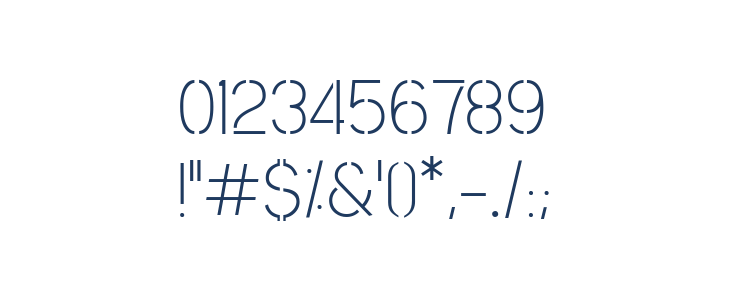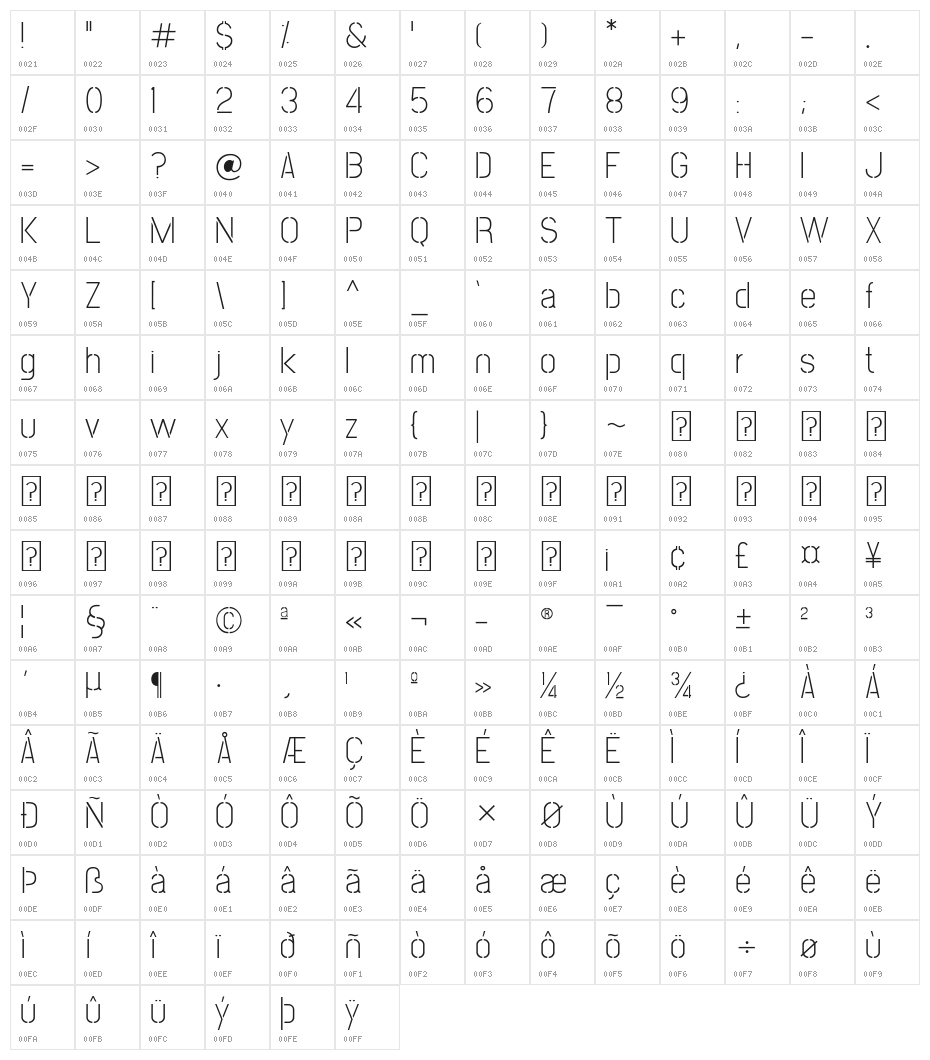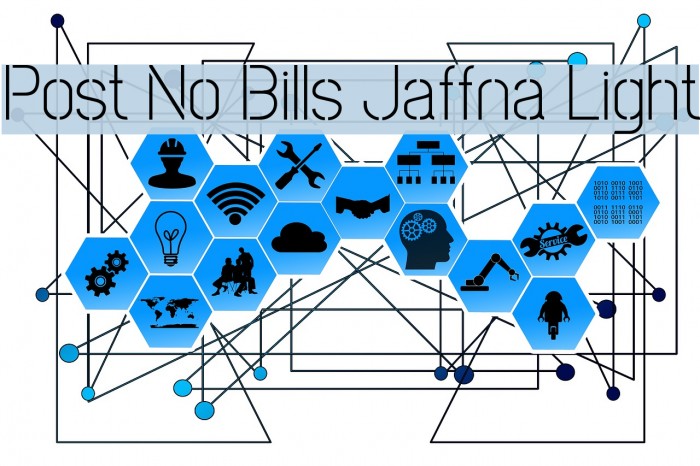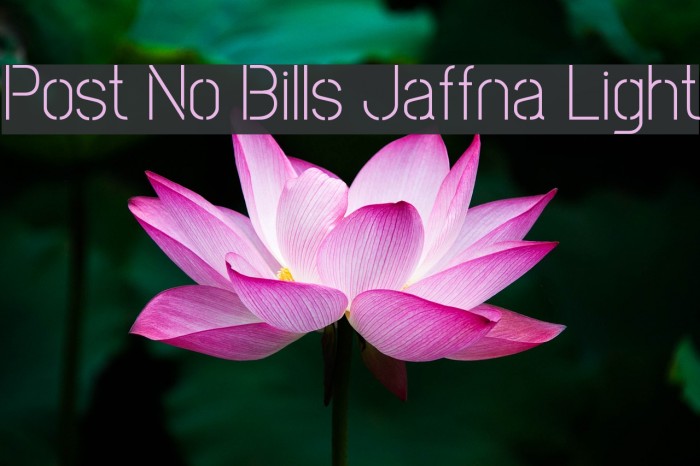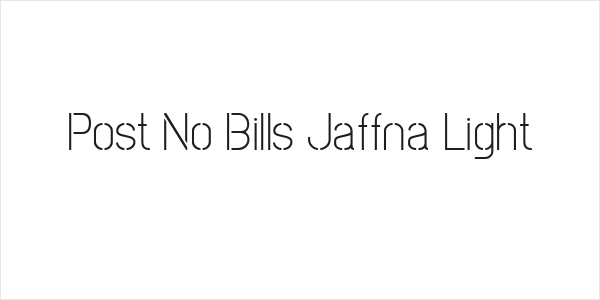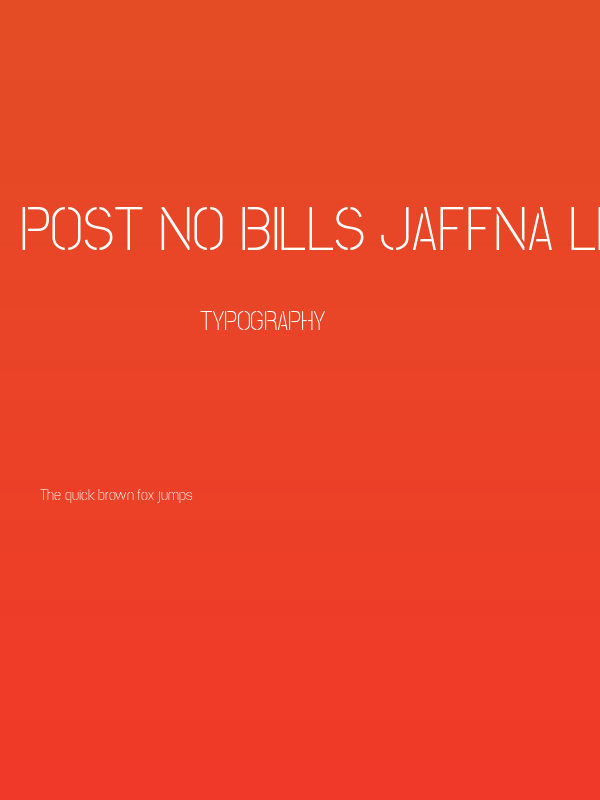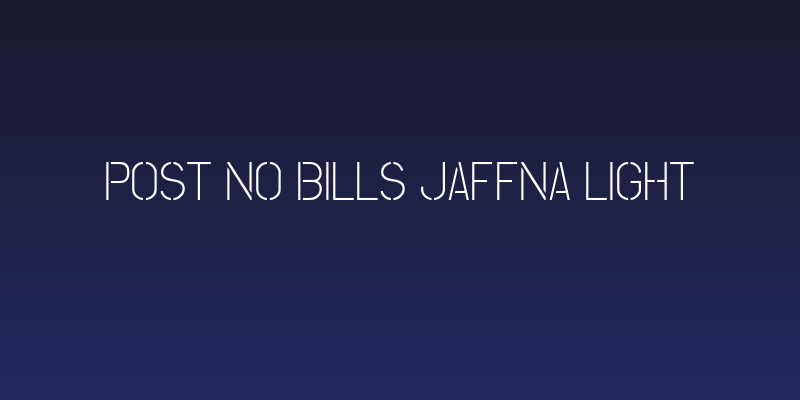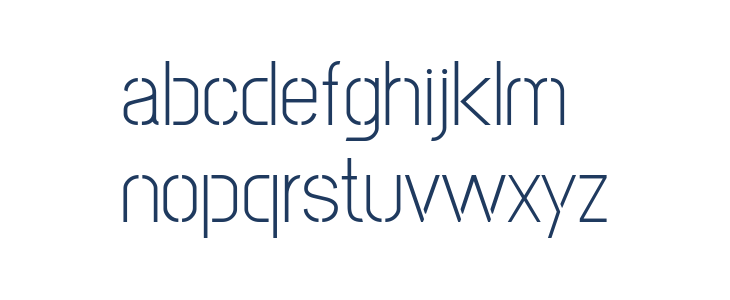
Post No Bills Jaffna Light Font
Post No Bills Jaffna Light Description
This font features a modern, geometric design with clean lines and a minimalist aesthetic. The characters are constructed with a uniform stroke width, giving it a sleek and contemporary look. The uppercase and lowercase letters maintain a consistent height, contributing to a harmonious appearance. The numerals and special characters are designed to complement the alphabet, ensuring readability and visual appeal. The overall style is suitable for projects that require a modern and professional touch.